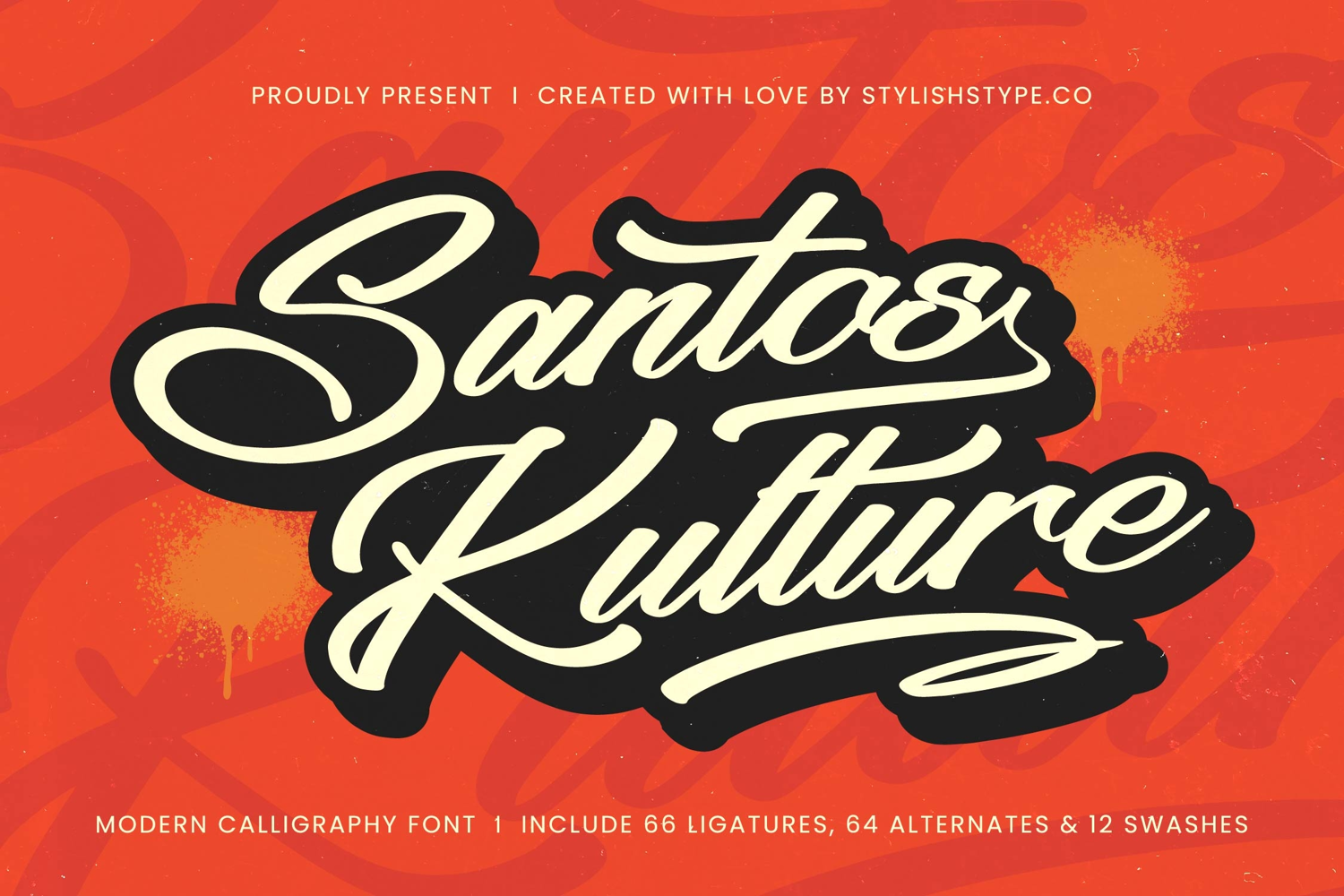
Santos Kulture - Modern Calligraphy Font
Santos Kulture Italic
Santos Kulture
Santos Kulture - Modern Calligraphy Font. The comprehensive package includes 66 meticulously crafted ligatures, 64 alternate characters, and 12 stylistic swashes, providing exceptional control over customization. This typographic toolkit ensures that every headline, logotype, or branded asset you create feels uniquely organic and possesses a genuine hand-crafted appearance, elevating the perception of quality and exclusivity.